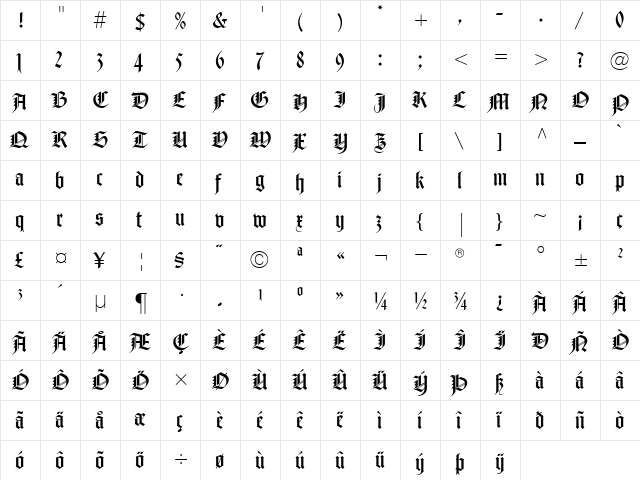
NotreDameRoman Roman
Design Context for NotreDameRoman Typeface
NotreDameRoman is a composed and adaptable typeface that performs quietly and consistently across a wide range of design contexts.